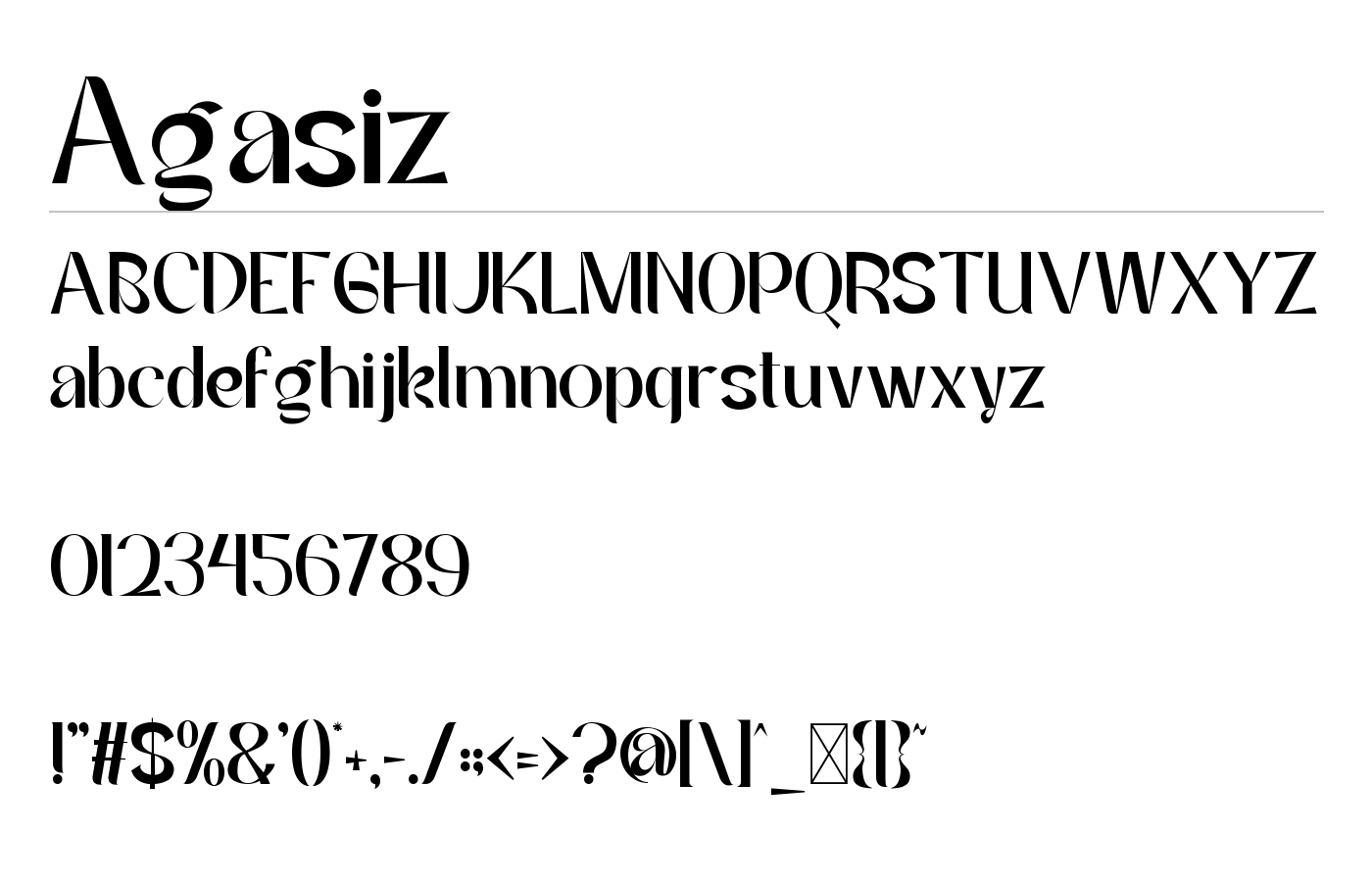
Agasiz is a distinctive serif font with elegant, high-contrast strokes and finely tapered serifs that evoke a timeless, sophisticated feel. Its unique letterforms combine classic and modern influences, making it ideal for luxury branding, editorial headlines, and fashion-forward design projects that seek a stylish yet refined presence.
Agasiz Font
About Agasiz Font
| Font family | Agasiz Font |